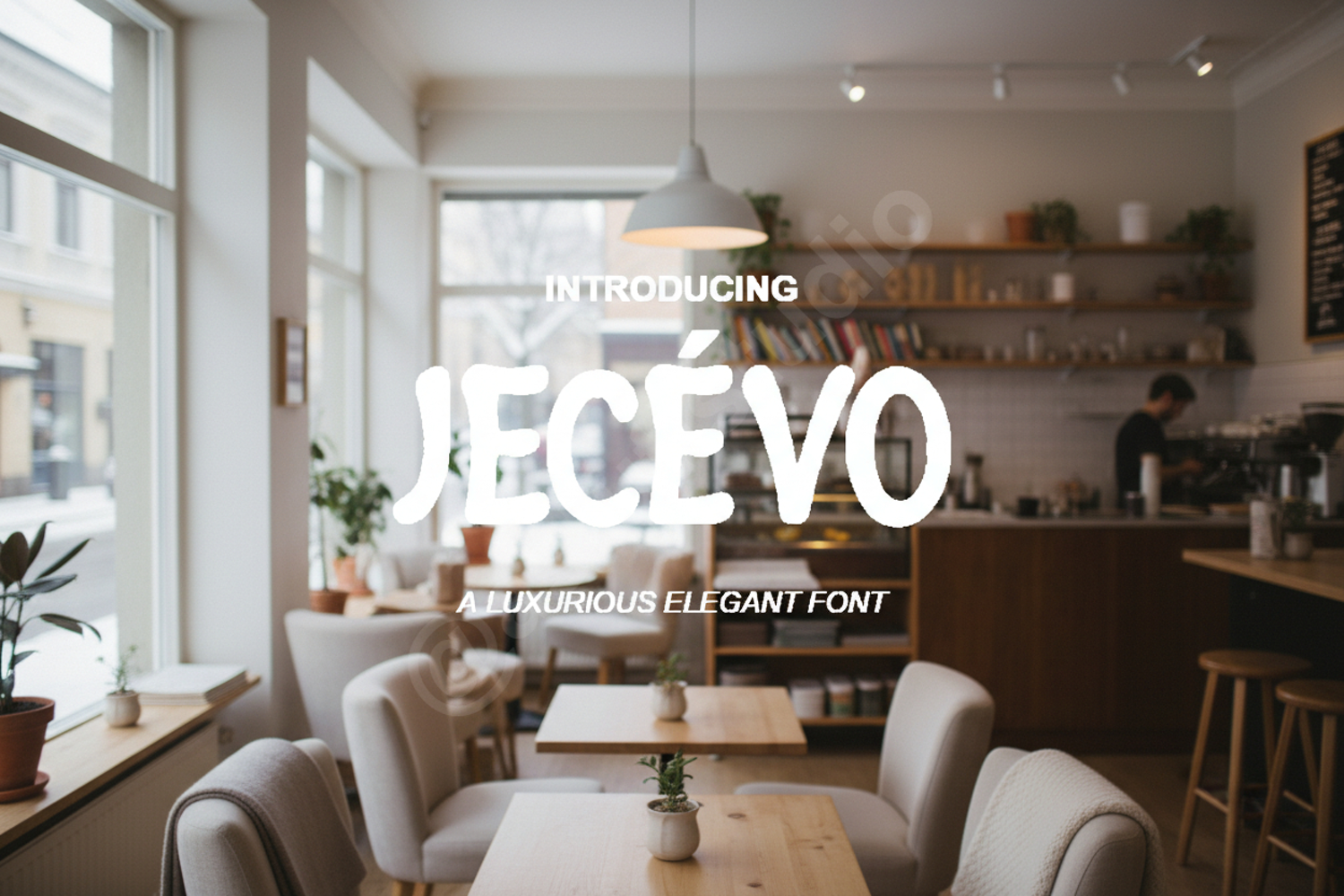
Jecevo - Modern Geometric Sans Serif
Jecevo
Jecevo is a premium geometric sans serif typeface designed to bring a touch of modern sophistication to any creative project. With its meticulous kerning and balanced letterforms, Jecevo offers a seamless reading experience while maintaining a high-end, professional aesthetic. Whether you are building a brand from scratch or looking for the perfect headline font, Jecevo provides the versatility and clarity required for top-tier design work.
- Full character set with multilingual support
- Standard ligatures and alternate glyphs
- Branding and Identity: Craft memorable logos and cohesive brand guidelines.
- Wedding Stationery: Elegant and clean for modern invitations and menus.
- Digital Marketing: Optimized for high-impact social media graphics and ads.
- Editorial Design: Ideal for magazine layouts, brochures, and book covers.
- Corporate Projects: Perfect for professional presentations, reports, and stationery.